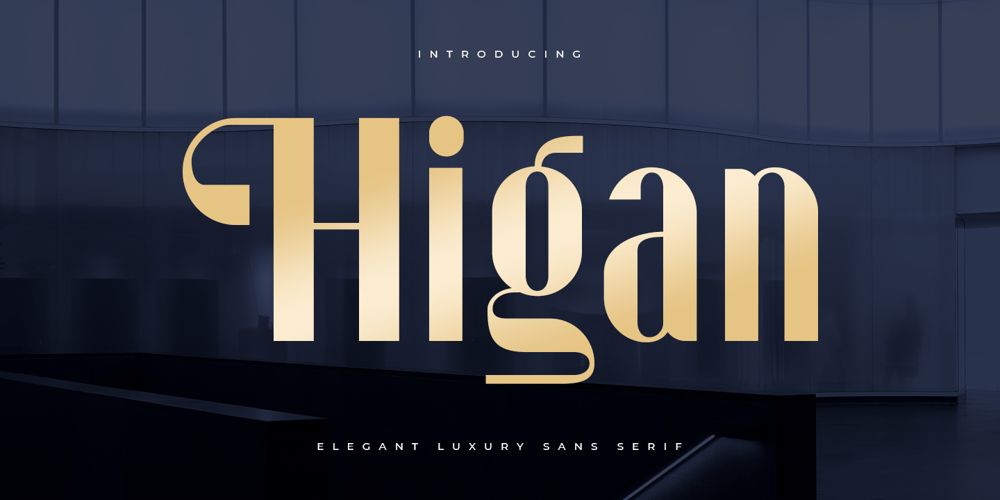
Higan
Higan font
Higan Font Family was designed by Zamroni Hamzah and published by Sensatype Studio. Higan contains 1 styles and family package options. New Elegant Luxury Sans Serif that we created special for elegant projects with extra ligature and alternates in unique shape will be ready to add value of your brand. It so nice to leverage designer or product owner that need solutions to make their design look more elegant and luxury. And specially for Higan font, We prepared any ligatures and any alternate characters to help you create unlimited variations for your creative needs.Higan Sans serif font ready with: Any options to get creative variations (combination of Alternate and Ligatures) 4 format already Preview as a inspirations that you can do with Higan Sans Serif font Ready with Lowercase and Uppercase characters Wish you enjoy our font. 🙂